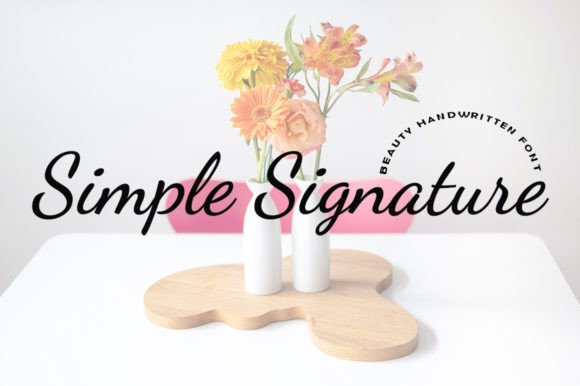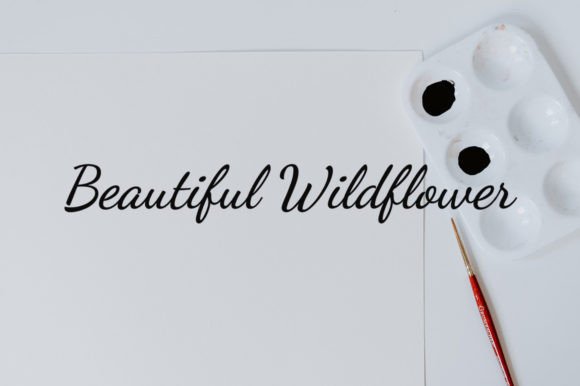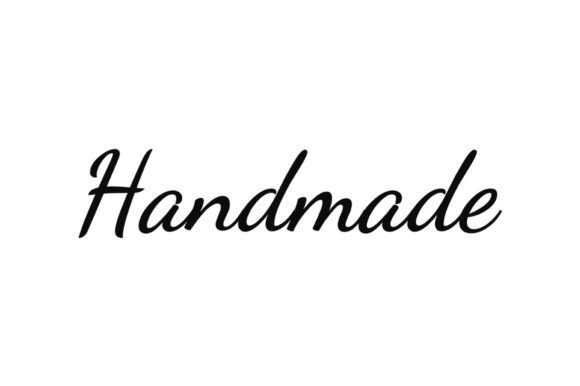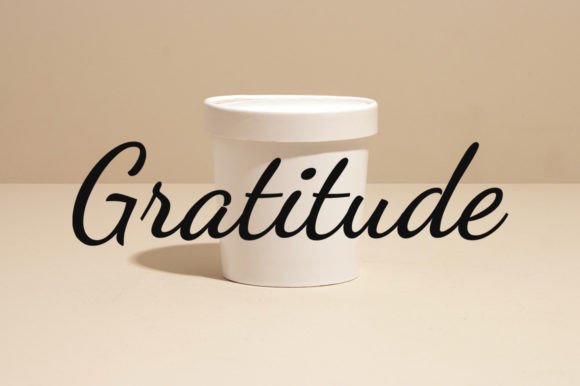
Simple Signature Font: Balanced Handwritten Script for Elegance
Discover Simple Signature – the handwritten font that strikes the perfect balance between personality and professionalism. With its goldilocks weight (not too light, not too bold) and natural flow, this versatile typeface adds refined character to any project without overwhelming your design.
Why Simple Signature Works
- Perfect Proportion: Ideal medium-weight stroke
- Natural Variation: Subtle character alternates
- Universal Appeal: Works for corporate & creative
- Clean Legibility: Reads clearly at small sizes
Ideal Applications
Professional Elegance
Perfect for:
- Email signatures
- Business stationery
- Certificate text
Creative Branding
Great for:
- Artisan product labels
- Boutique shop branding
- Wedding invitations
The Perfect Balance of Style & Clarity
✍️ Designer Tip: Use at 18pt with 1.3 line-height for perfect document signatures.
Perfect Pairings
- Corporate Contrast: with Helvetica Neue
- Modern Flair: with Montserrat
- Classic Combo: with Garamond